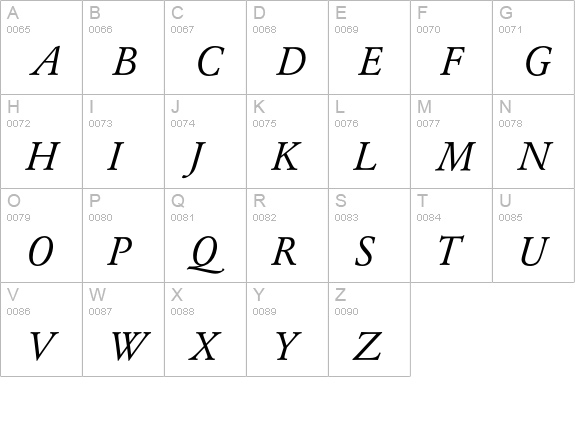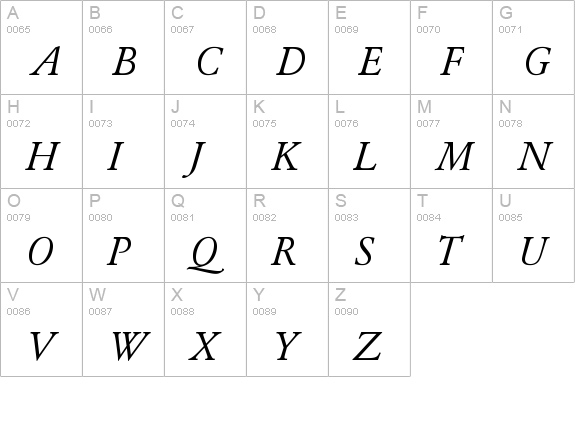
Garamond ExpBQ ItalicOsF Font Details
Garamond ExpBQ ItalicOsF font is a stunning and elegant typeface that exudes sophistication and refinement. With its stylish and slanted letterforms, this font adds a touch of modernity to the classic Garamond design. Designed with meticulous attention to detail, Garamond ExpBQ ItalicOsF showcases the perfect balance between tradition and innovation. The elongated and gracefully curved letterforms create a sense of fluidity and grace, making it an ideal choice for projects that require a touch of elegance. The italicized style of Garamond ExpBQ ItalicOsF adds a sense of dynamism and movement to any text it is applied to. Whether used for headings, subheadings, or body text, this font effortlessly captures attention and enhances the overall visual appeal of any design. One of the most remarkable features of Garamond ExpBQ ItalicOsF is that it is freely available to download at FontsMarket.com. This means that designers, creatives, and enthusiasts can access and utilize this font without any restrictions or limitations. With its wide range of characters and extensive language support, Garamond ExpBQ ItalicOsF is a versatile font that can be used across various design projects. From branding and packaging to editorial and web design, this font adapts seamlessly to different contexts and conveys a sense of sophistication and professionalism. In conclusion, Garamond ExpBQ ItalicOsF font is a true gem in the world of typography. Its impeccable design, combined with its freely available status at FontsMarket.com, makes it a must-have for anyone seeking to elevate their design projects with a touch of elegance and refinement.